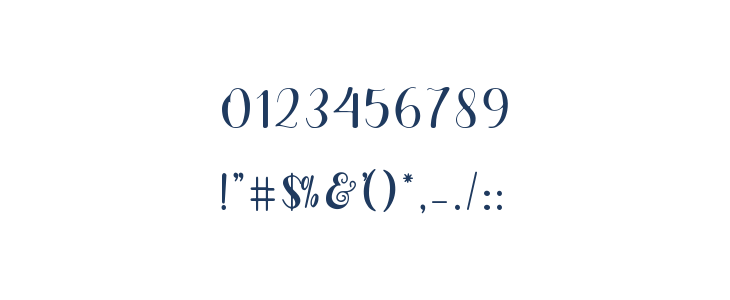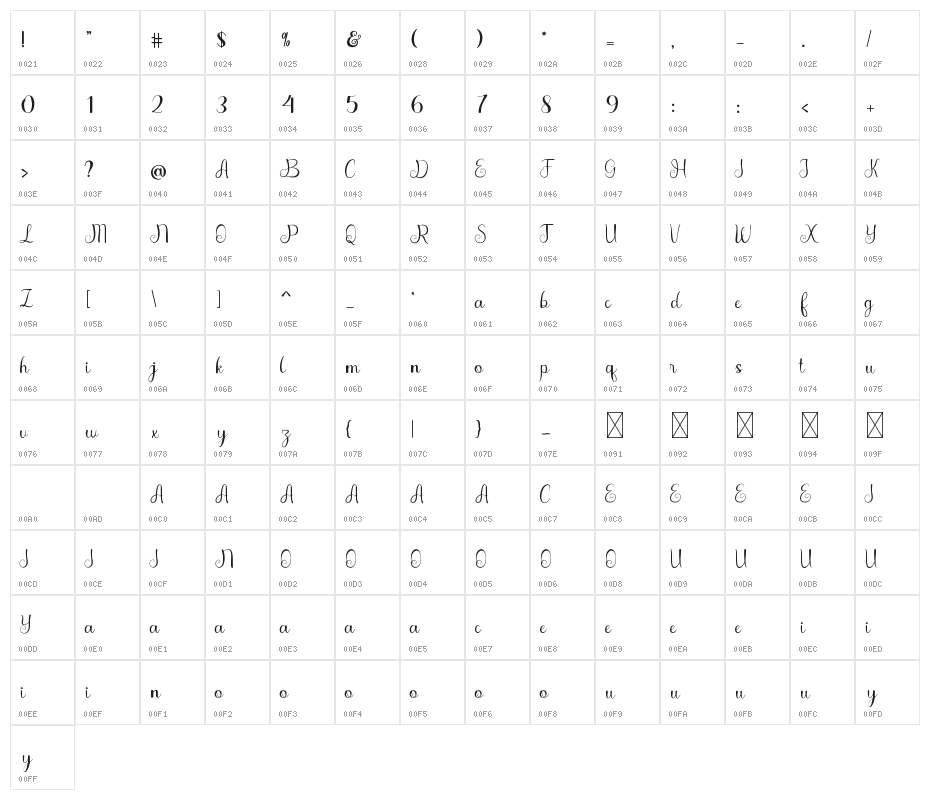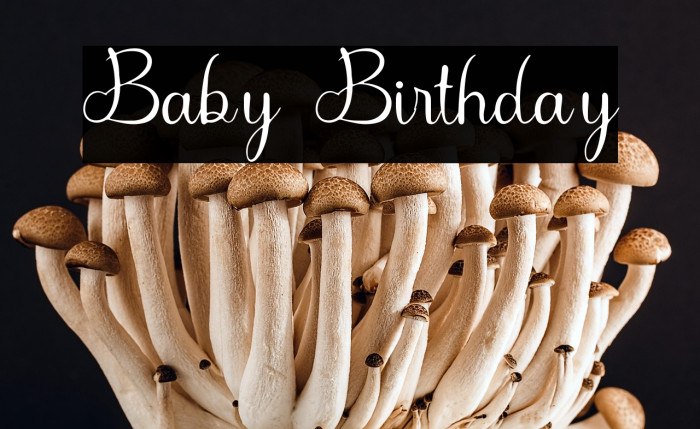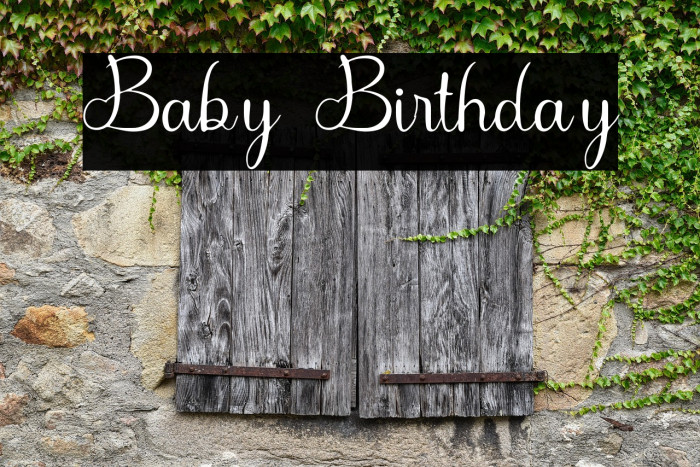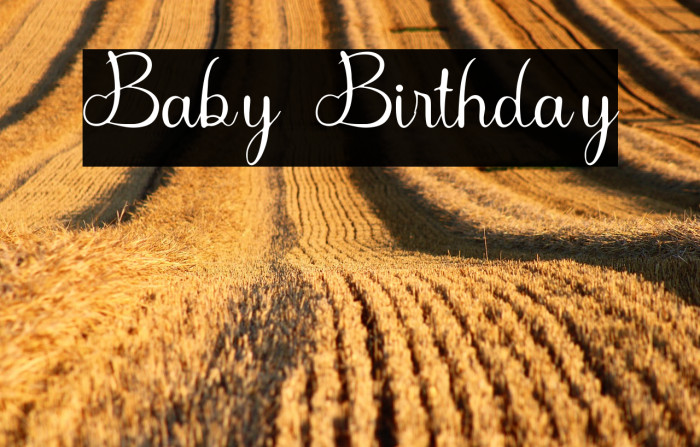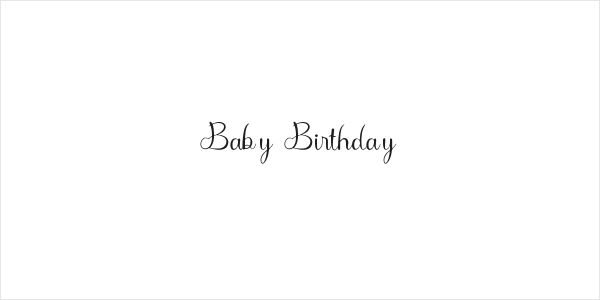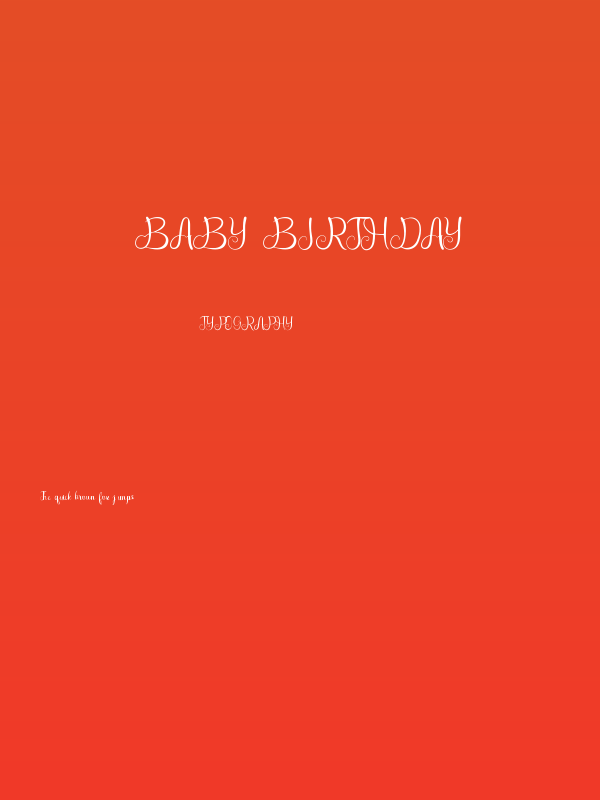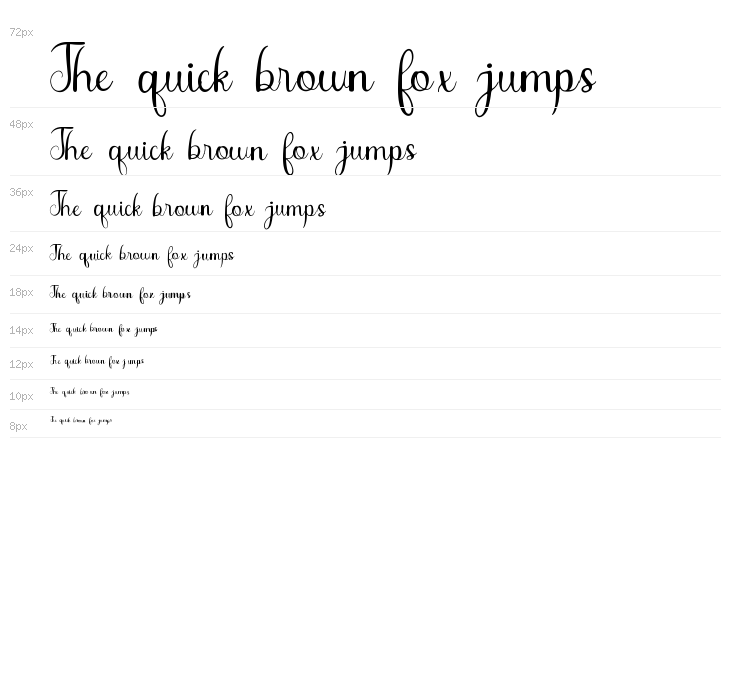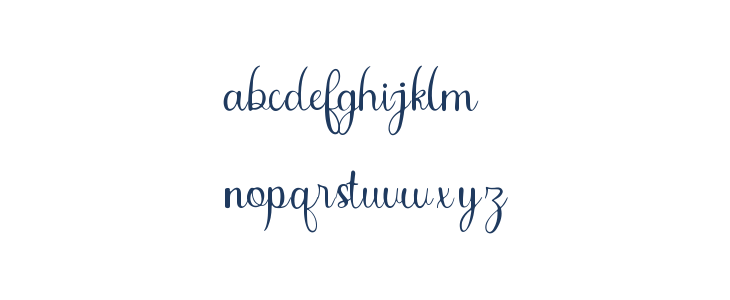
Baby Birthday Font
Baby Birthday Description
This font features a playful and whimsical design, characterized by its curly and flowing letterforms. The uppercase letters are particularly ornate, with loops and swirls that give them a lively and decorative appearance. The lowercase letters maintain a more subdued yet still playful style, with gentle curves and a slightly informal feel. The numerals are bold and consistent, matching the overall aesthetic of the font. Special characters are included, maintaining the same decorative style, making this font versatile for various creative uses.
Overall StylePlayful, Whimsical, Decorative
Use CaseHeadlines, Invitations, Greeting Cards
Proposed ProjectsIdeal for children's birthday invitations, playful branding, greeting cards, and creative projects that require a fun and lively touch.